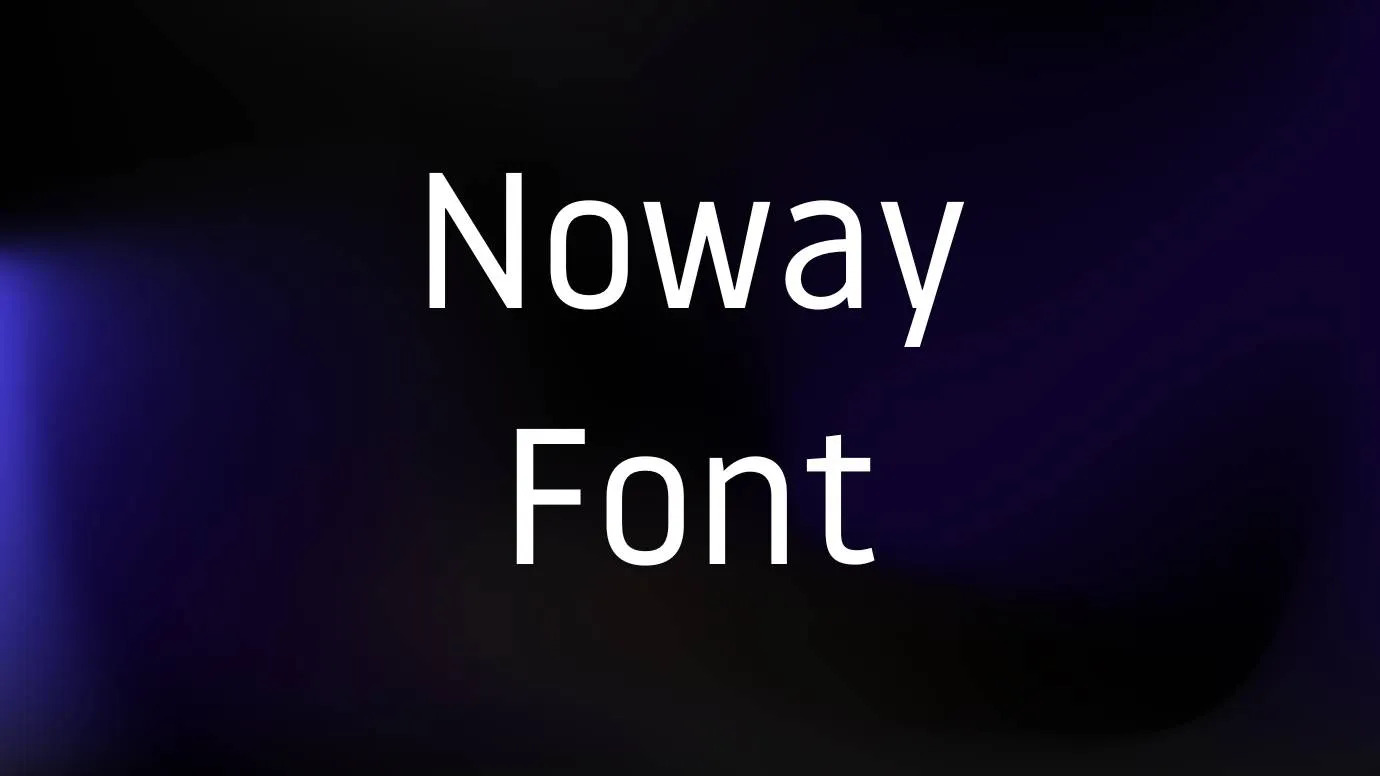
Noway Font Family is a famous and modern typeface. This handsome look font was designed and shared by Atipo. It comes in the sans serif category and it is effective for different projects.
It is also best for the combination and pairing with other similar sans serif typefaces such as alternate gothic font. According to its unique features, this typeface is perfect for creating modern designs.
Noway Font